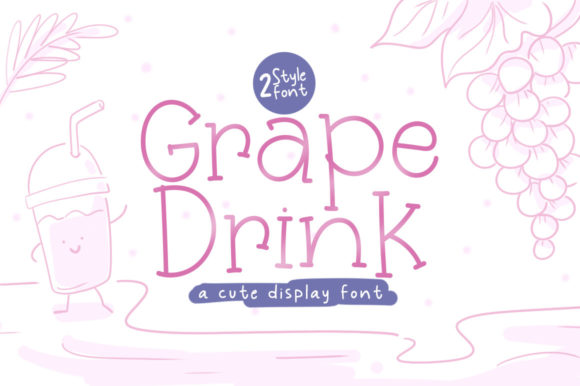
Grape Drink Font
Prepare to be captivated by Grape Drink Font, an extraordinary display font that will ignite your creativity and transform your designs into masterpieces. Step into a world of whimsy and delight as you explore the enchanting characters of this playful font, meticulously crafted by the talented si.jalembe.
Grape Drink Font is not just a font; it's an invitation to unleash your imagination. With its charming and cheerful vibe, this font is the perfect companion for designs that demand a touch of playfulness and fun. Whether you're crafting captivating YouTube thumbnails, creating enchanting Reddit posts, or embarking on any creative adventure that calls for a dash of whimsy, Grape Drink Font is your trusty sidekick.
Dive into the depths of this remarkable font and discover a treasure trove of possibilities. Its versatile nature lends itself effortlessly to a myriad of projects, from eye-catching logos that demand attention to playful packaging designs that will make your products irresistible. Unleash your inner child and let Grape Drink Font guide you on a journey of creativity and delight.
Imagine your YouTube videos adorned with captivating thumbnails that entice viewers with their playful charm. Picture your Reddit posts brimming with vibrant, attention-grabbing headlines that spark curiosity and invite engagement. With Grape Drink Font, your online presence will radiate a unique and unforgettable flair.
But Grape Drink Font's allure extends far beyond the digital realm. Its playful characters will add a touch of joy to any printed creation, whether it's invitations for a special celebration or greeting cards that convey your heartfelt sentiments. Let your imagination soar as you explore the endless possibilities this whimsical font has to offer.
Indulge in the sweet embrace of Grape Drink Font and watch your designs blossom into vibrant, captivating creations. Its playful spirit will ignite your imagination and guide you on a journey of creativity and joy. Embrace the magic of this extraordinary font today and let your designs dance with delight!